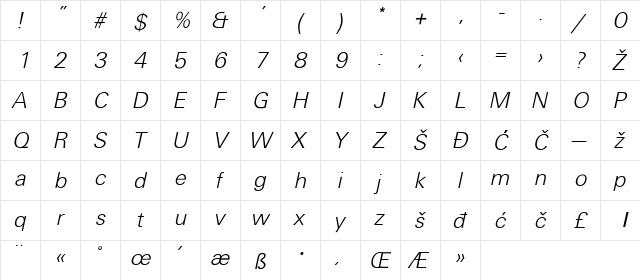
Universans450_PP Regular Font Preview
Universans450_PP Regular
Universans450_PP Regular Font Details
Design Context for Universans450_PP Typeface
Universans450_PP is a composed and adaptable typeface that performs quietly and consistently across a wide range of design contexts.